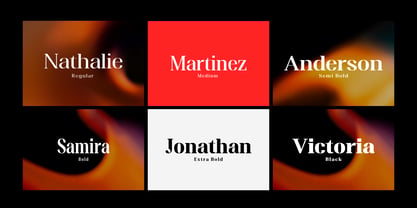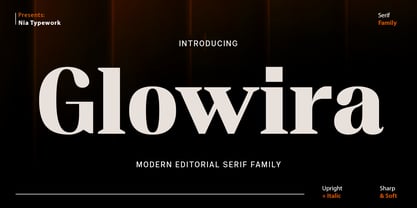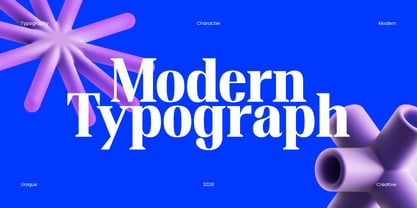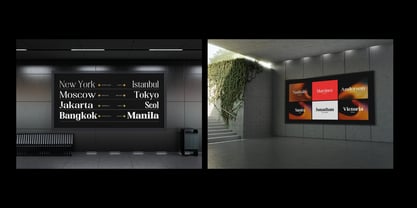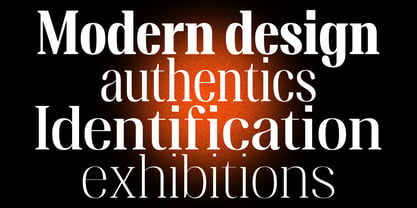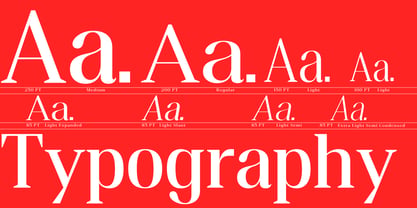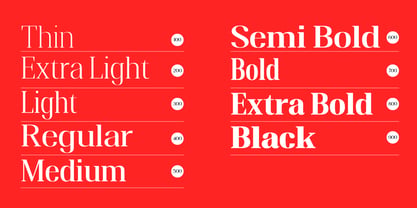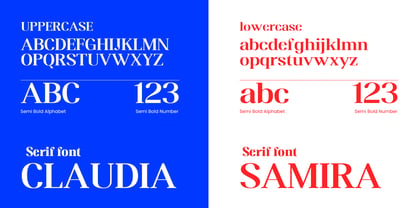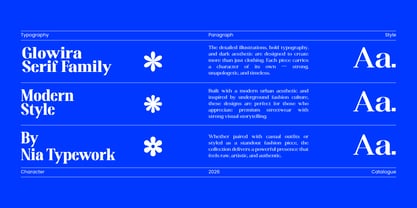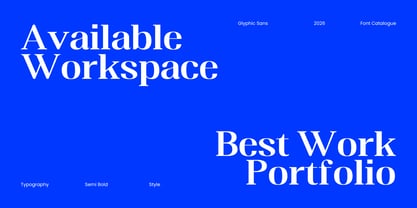
Glowira
by Nia Typework
The Glowira Font Family was designed by Mauli Zari, Nia Octarina and published by Nia Typework. Glowira contains 181 styles and family package options. More about this family
Glowira is a modern editorial serif family crafted to bring elegance, confidence, and visual distinction to contemporary design. Combining refined proportions, expressive curves, and carefully balanced contrast, Glowira delivers a sophisticated presence across headlines, branding, publishing, packaging, and luxury communications. The family includes both Upright and Italic styles, along with Sharp and Soft variants, allowing designers to move seamlessly between dramatic editorial expression and approachable sophistication. Designed for versatility and impact, Glowira offers a timeless serif voice that feels both classic and distinctly modern.
Designers: Mauli Zari, Nia Octarina
Foundry: Nia Typework